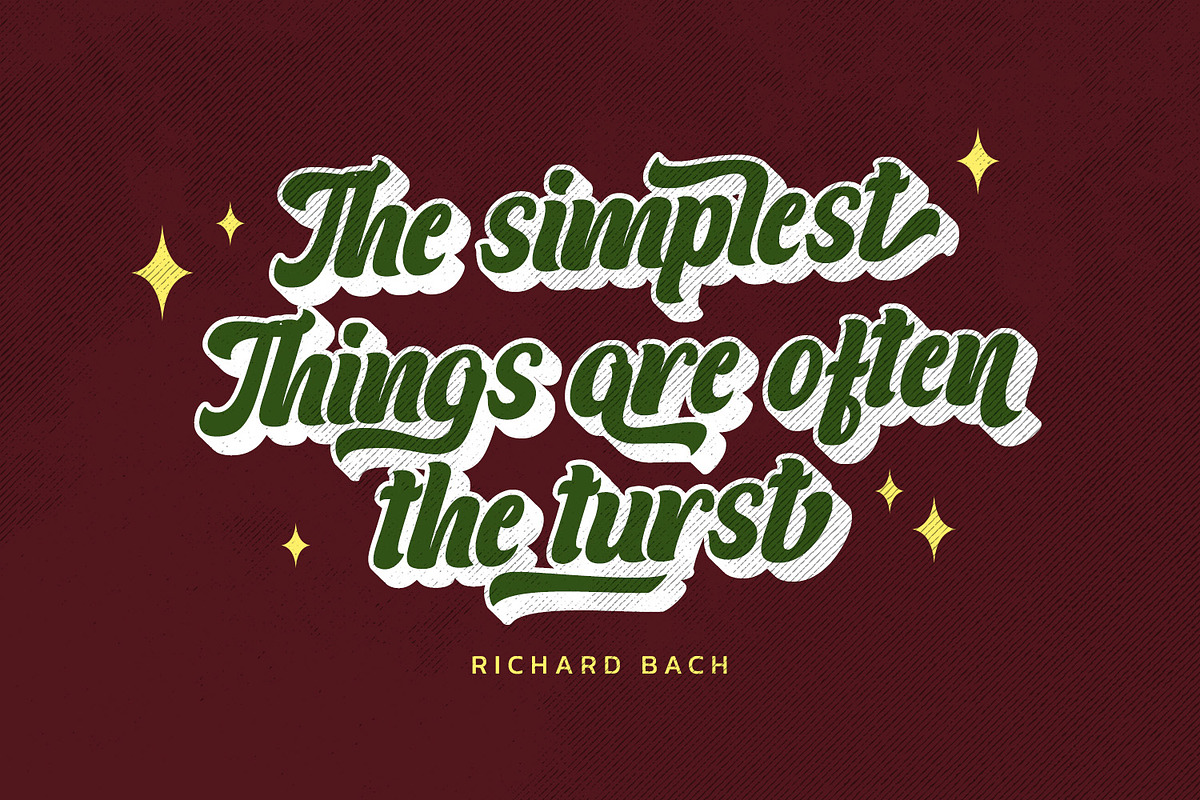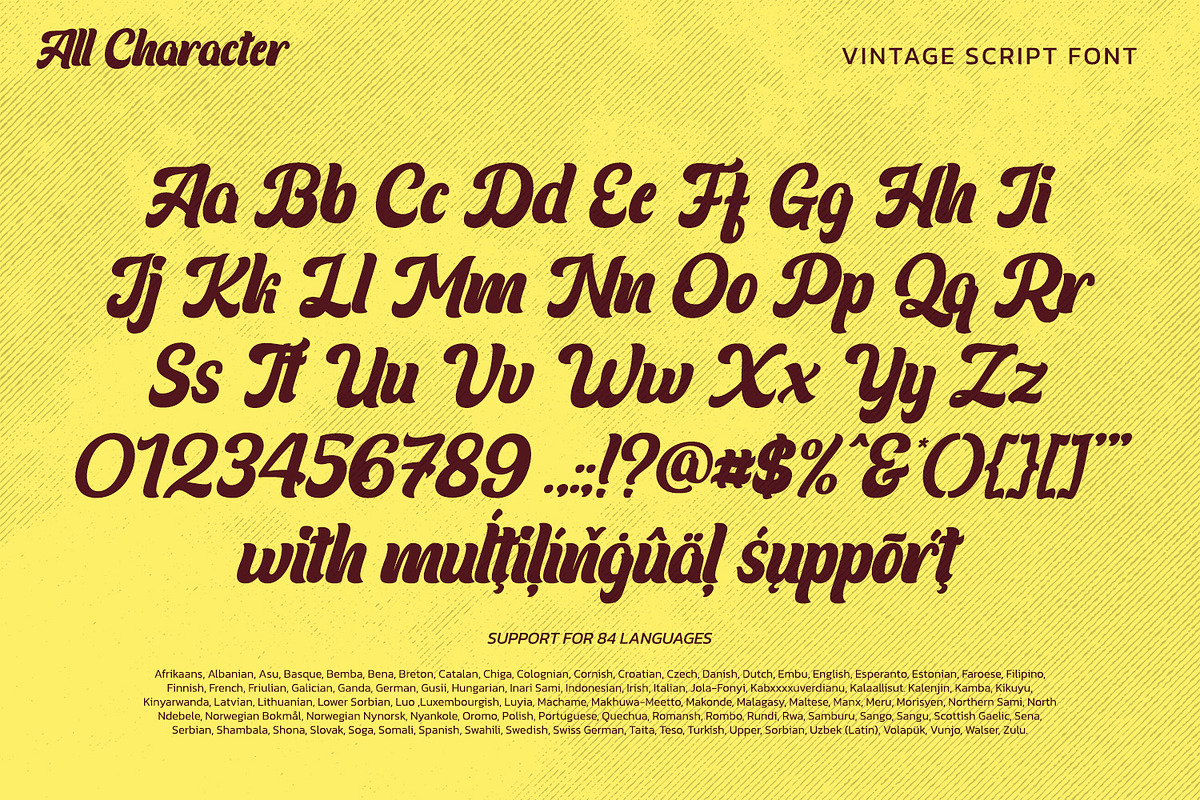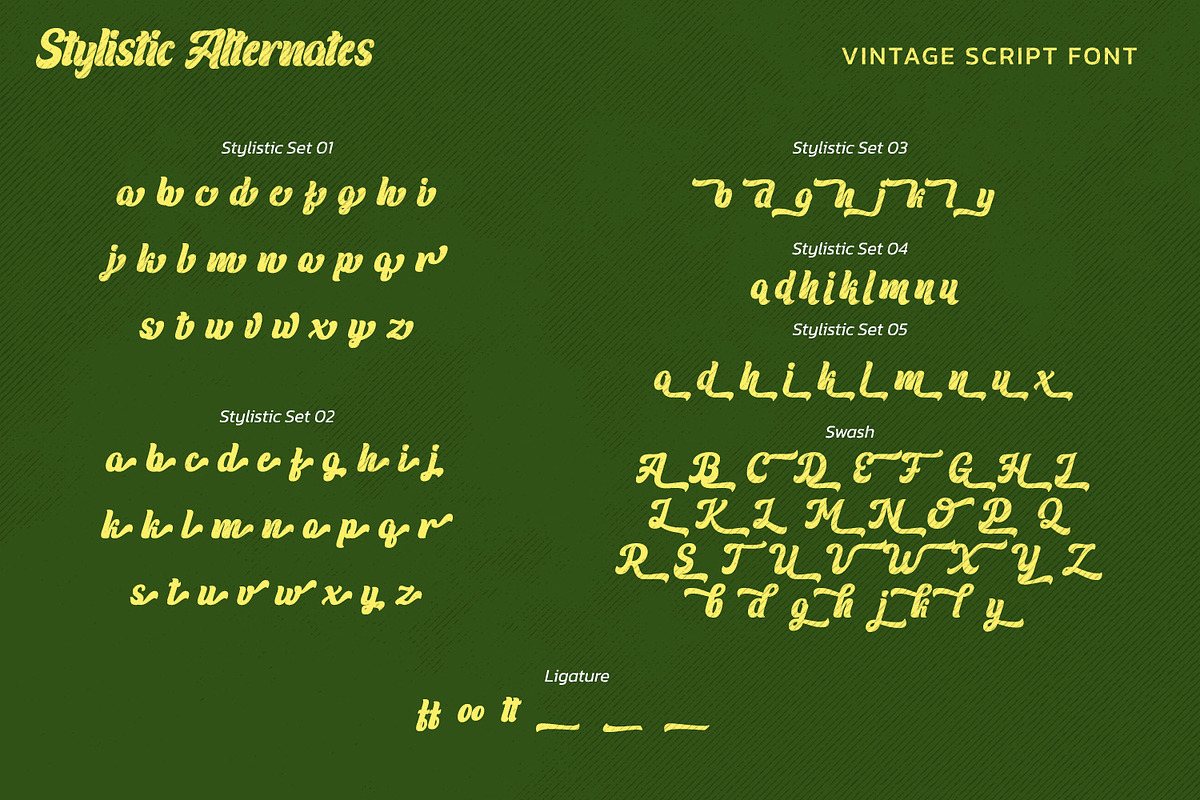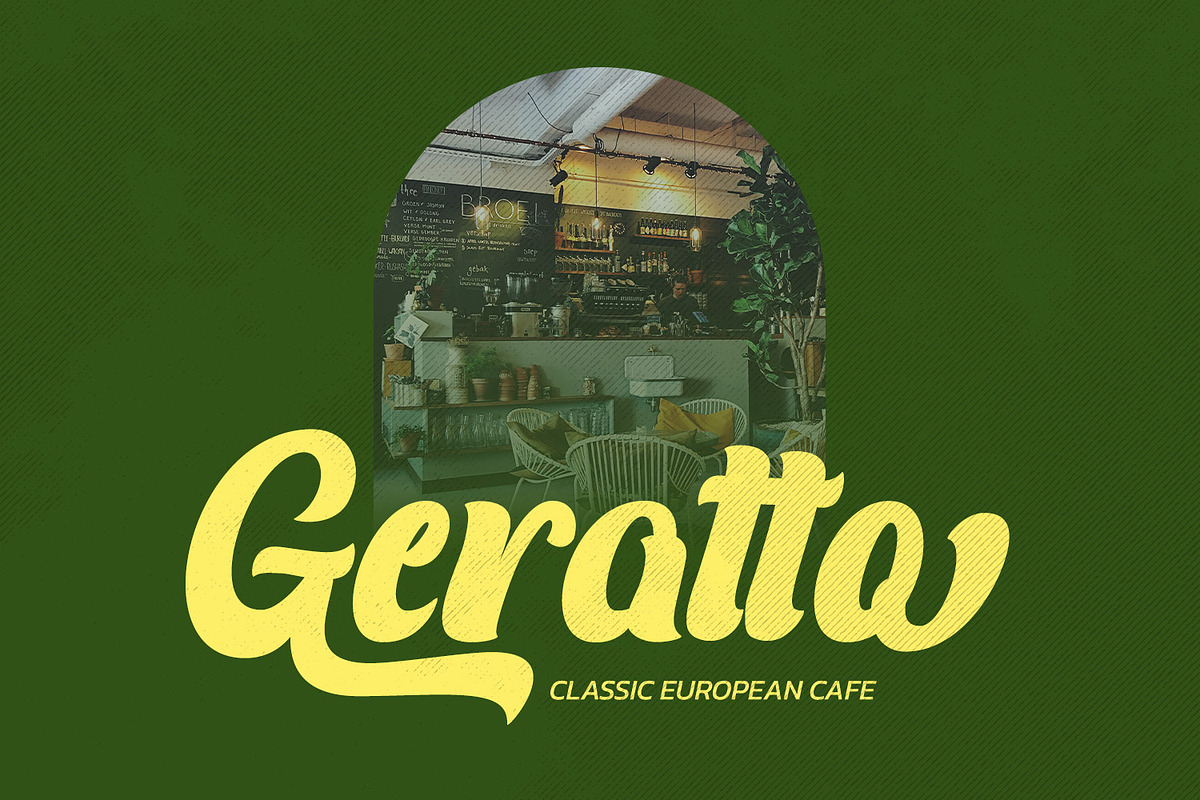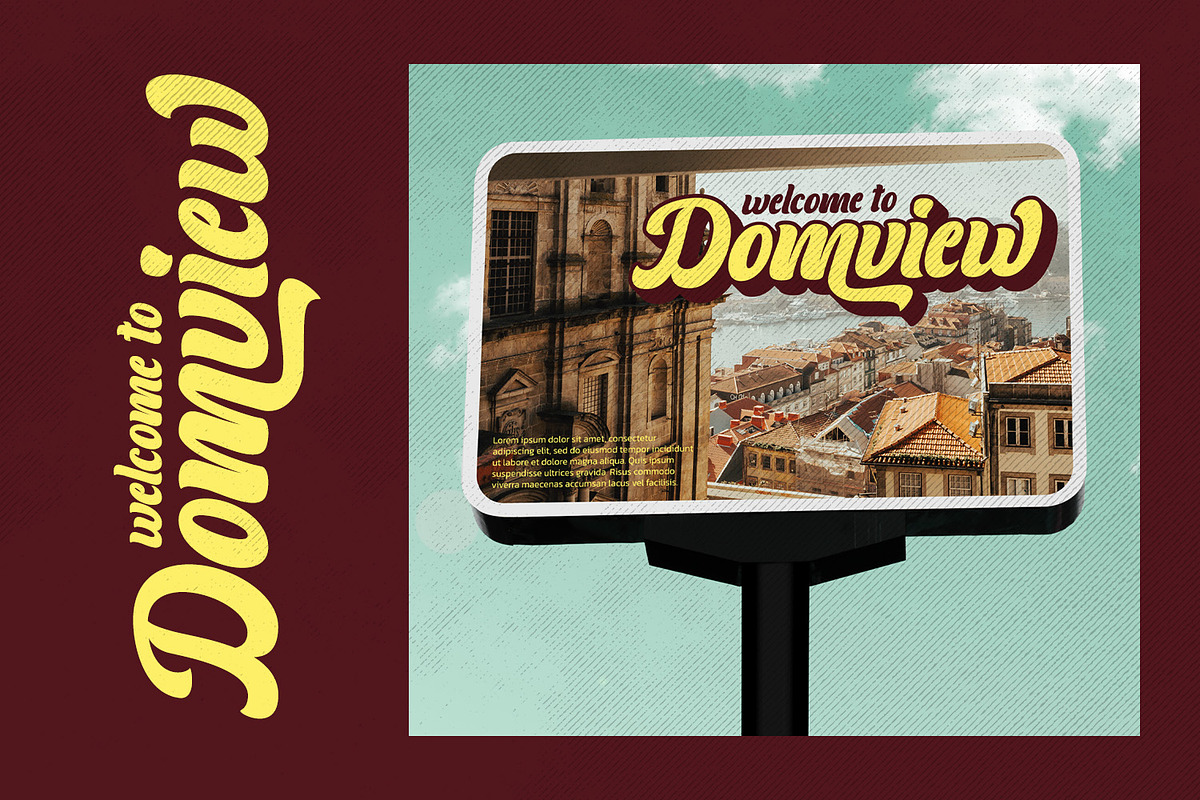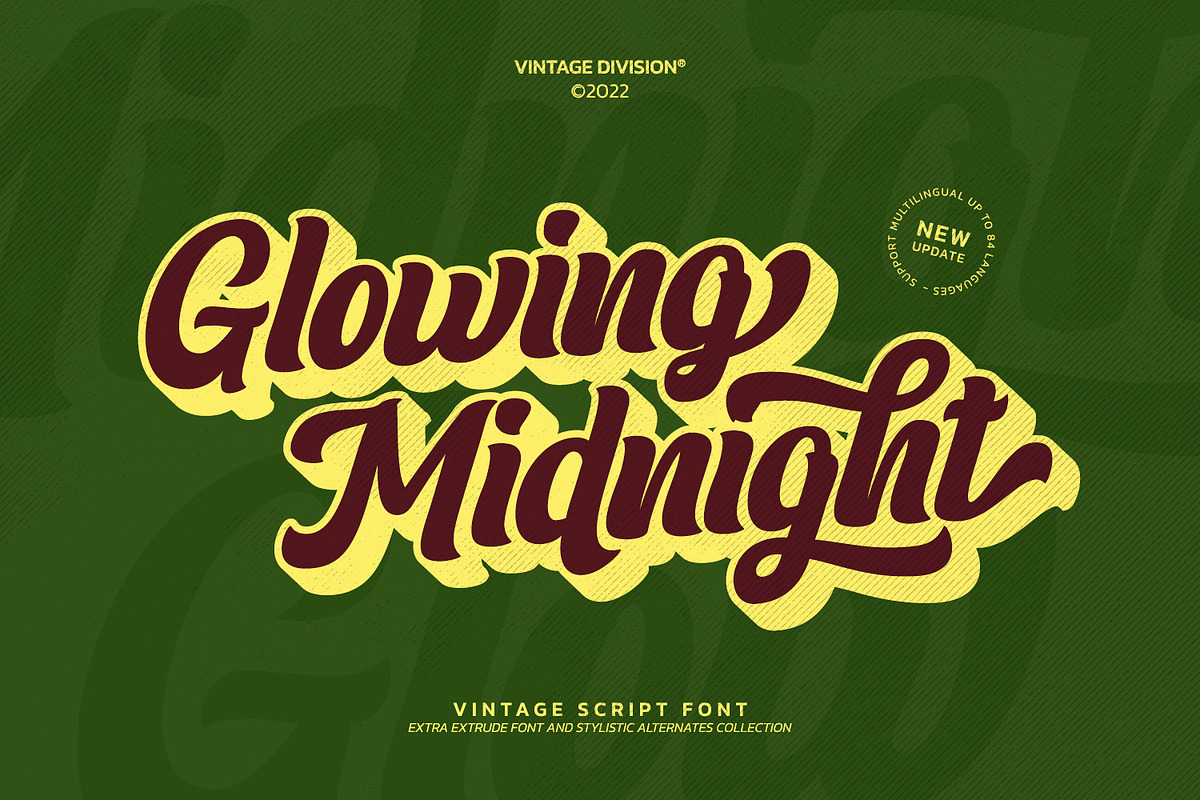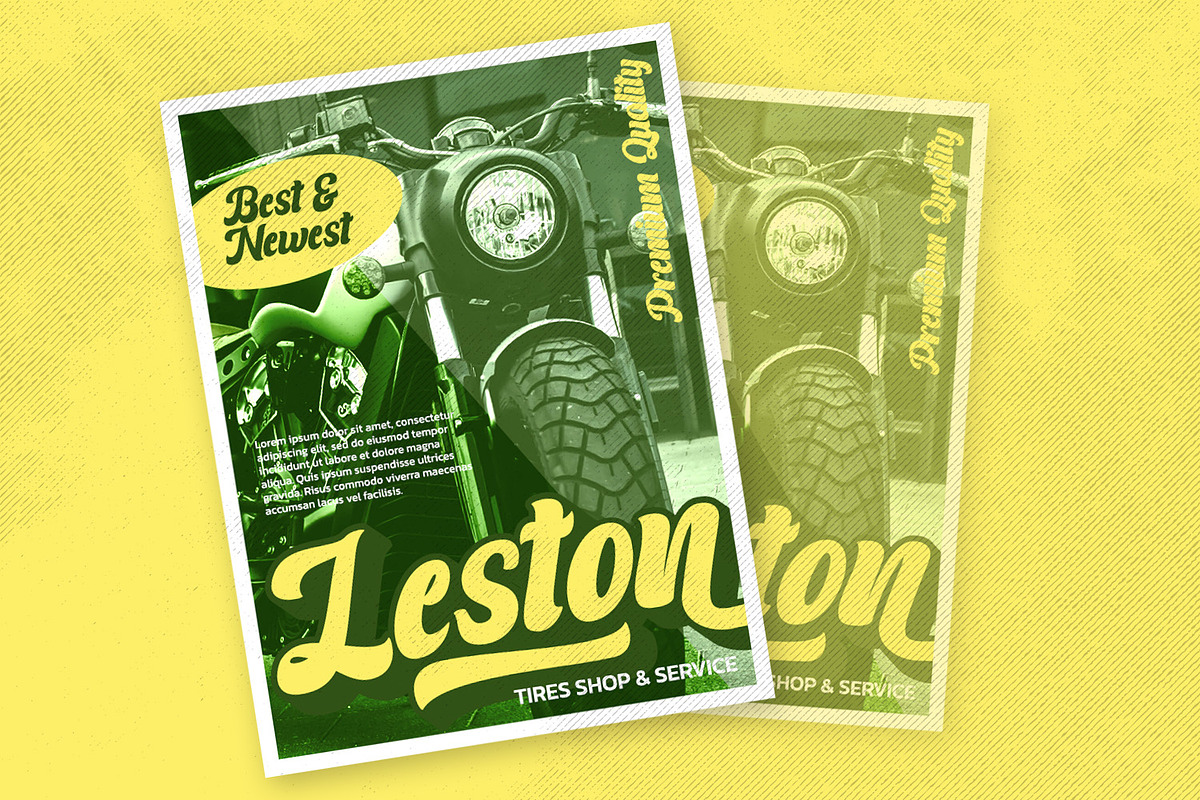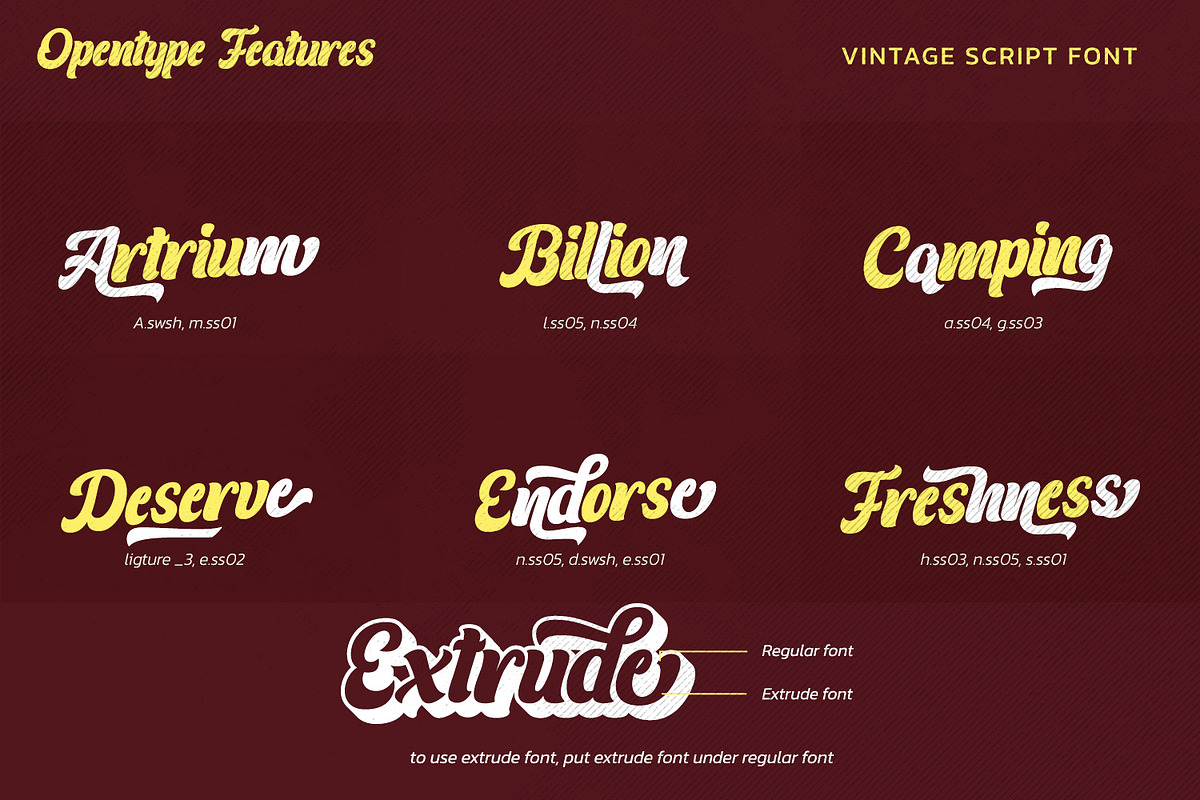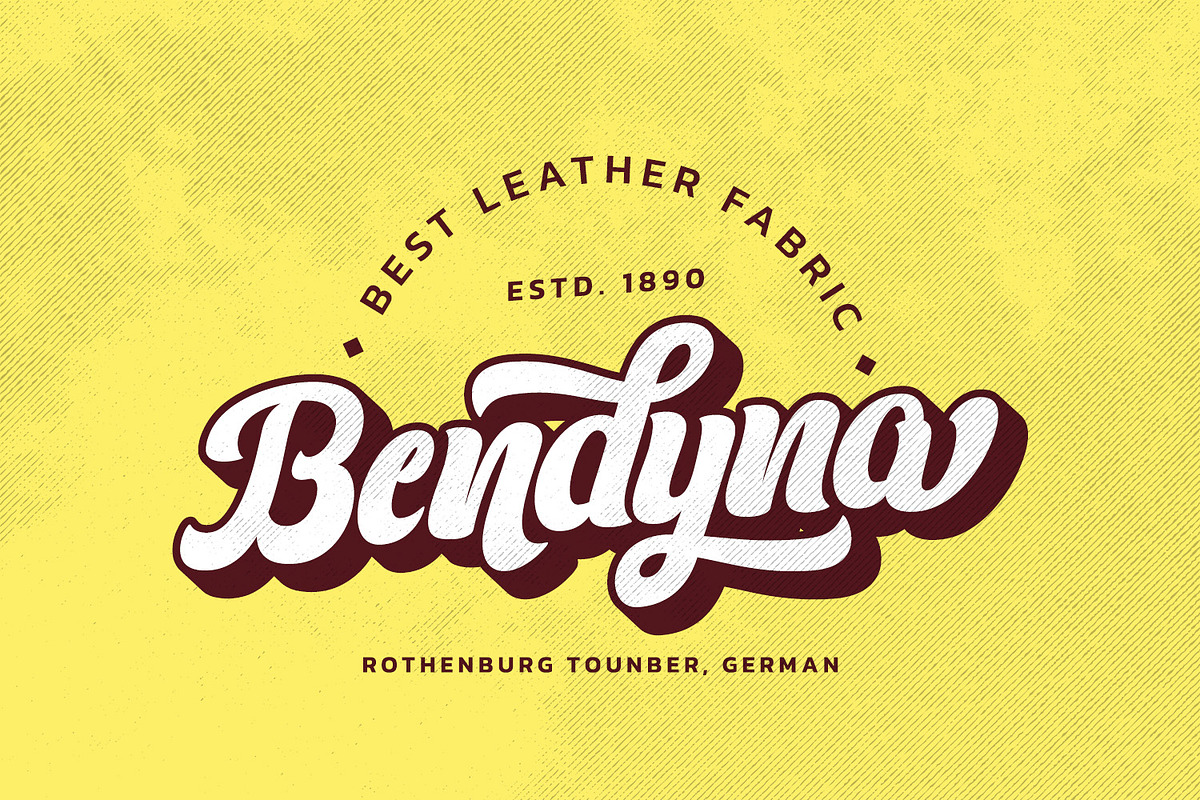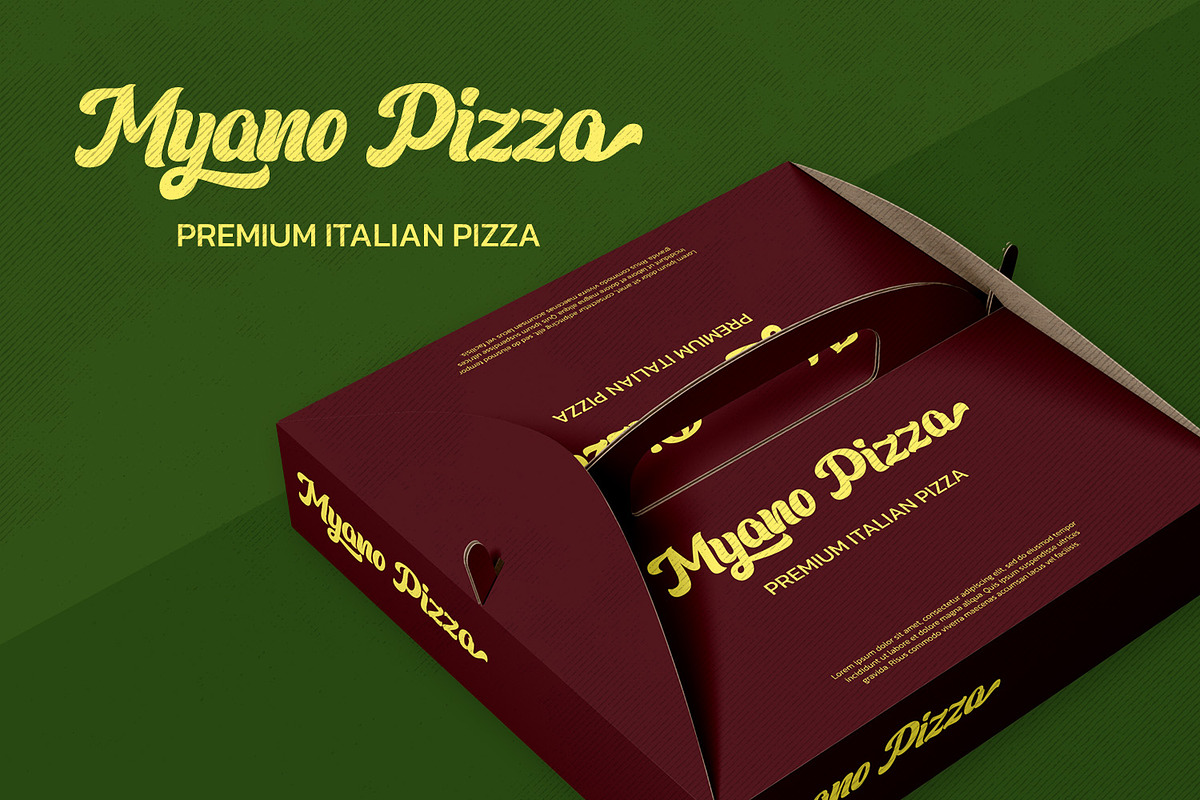
Glowing Midnight
Looking for a font that will make your branding stand out? Do you sometimes have an appetite for a bit more wholesome typography? Looking for a fabulous, stylish, and adventure font? We've got what you want.
Glowing Midnight-A Script Font
Glowing Midnight is a unique script font with retro touch. This font features thick and angular letters that easy on the eyes and nice to look while it’s also easy to read. Glowing Midnight becomes more special with extruding version option. Well suited to titles, poster designs, branding, logos, and many more.
Our font always includes Multilingual Support to make your branding reach a global audience.
- Stylistic Set